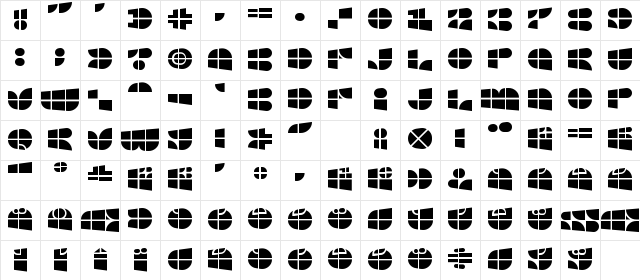
Windows Icon Font Regular
Foundry: Architaraz Type
Designer: Zhalgas Kassymkulov
Complete Windows Icon Font Regular glyph index. Displaying only characters natively supported by Windows Icon Font Regular font.
Design Context for Windows Icon Font
Windows Icon Font is a composed and adaptable typeface that performs quietly and consistently across a wide range of design contexts.